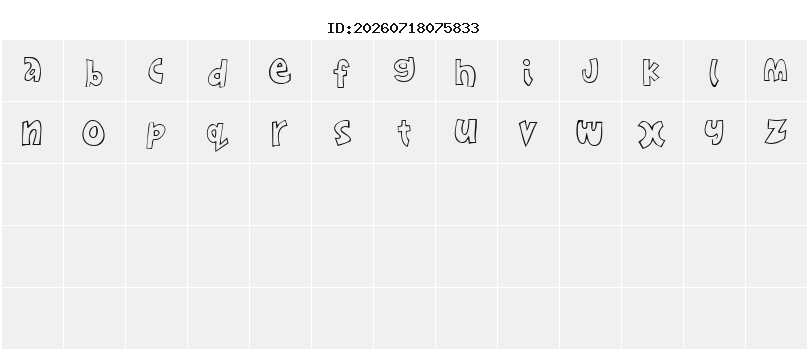
Charley Preview
• Font Name: Charley
• Full Font Name: Charley
About Charley.ttf
Charley.ttf is a modern, elegant sans-serif font designed for ultimate readability and visual harmony. Perfect for branding, headlines, web design, and print materials.